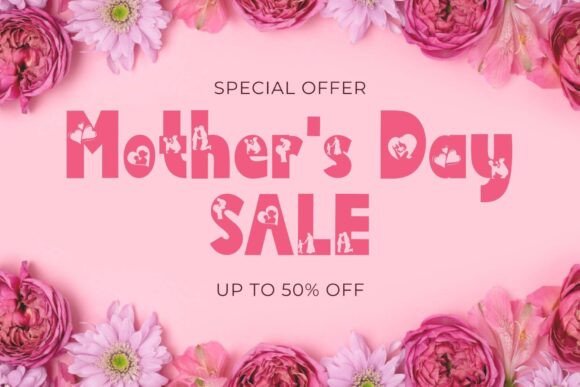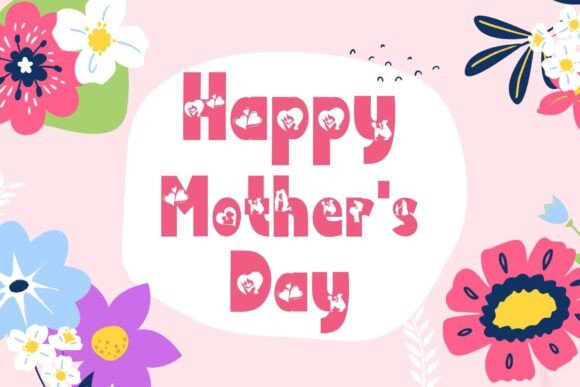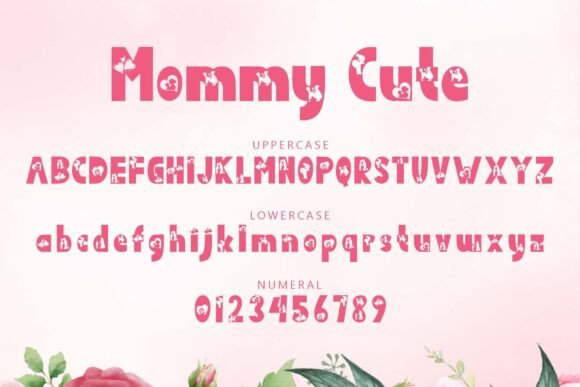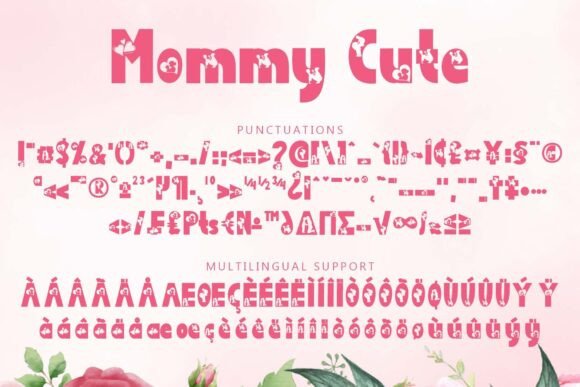
Introduction to Mommy Cute Font
“Mommy Cute” is a cute and unique display font.
This font is equipped with uppercase, lowercase, numerals, punctuations and multilingual support It is very suitable for posters, mother’s day, summer, spring, holiday, vacations, logos, christmas, easter, branding and others.
Key Features of Mommy Cute Font